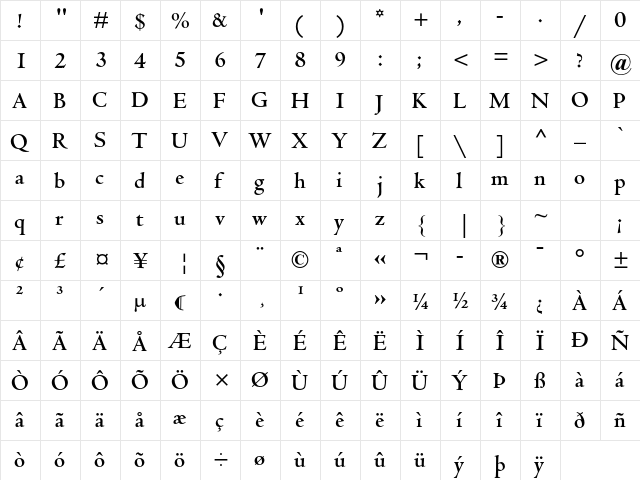
Centaur MT Std Bold Font Preview
Centaur MT Std Bold
Centaur MT Std Bold Font Details
| Designer | Bruce Rogers, Frederic Warde |
Design Context for Centaur MT Std Typeface
Centaur MT Std takes a measured approach to typography — its balanced proportions and neutral character make it a reliable workhorse for both digital and print work. The heavy weight commands attention and anchors typographic hierarchies.